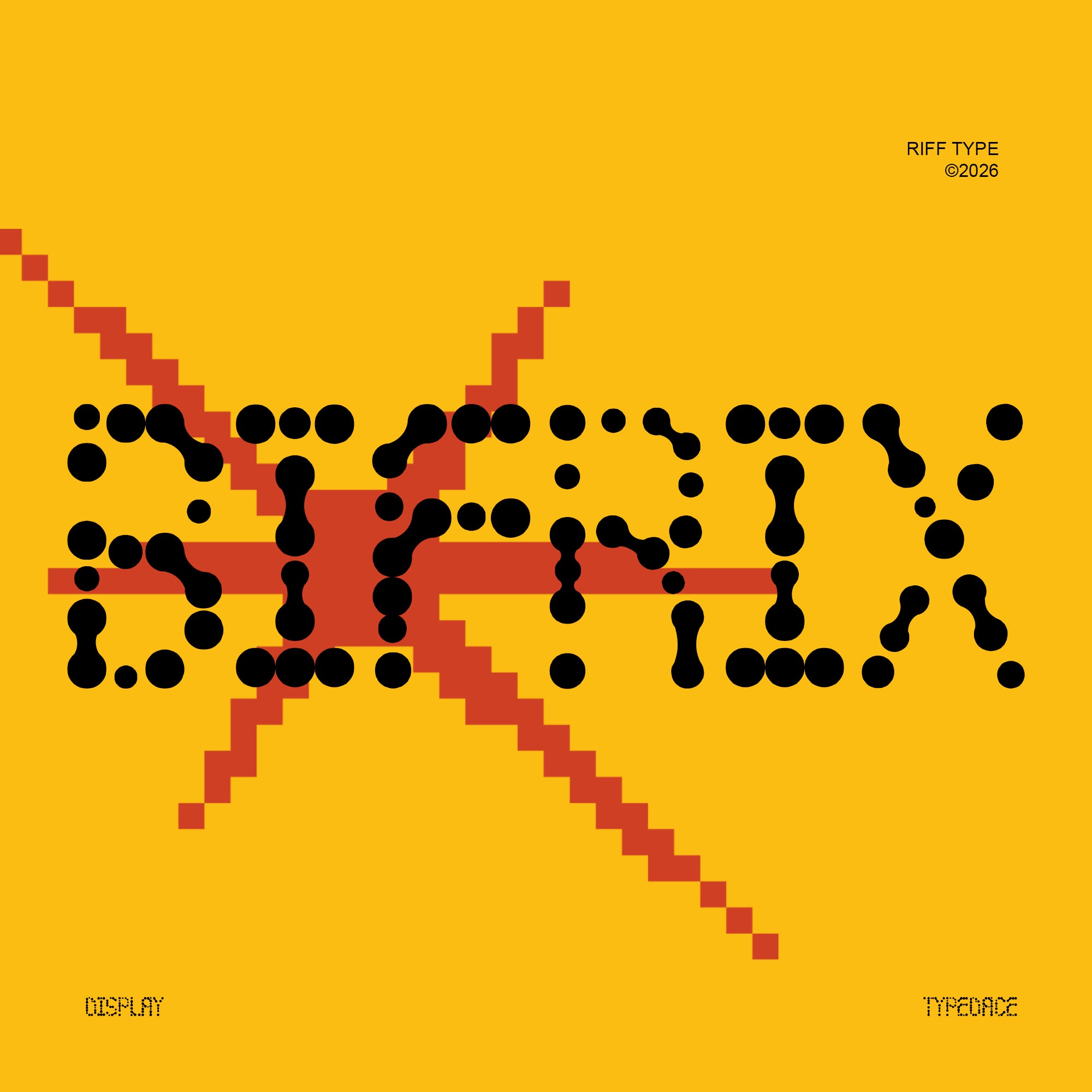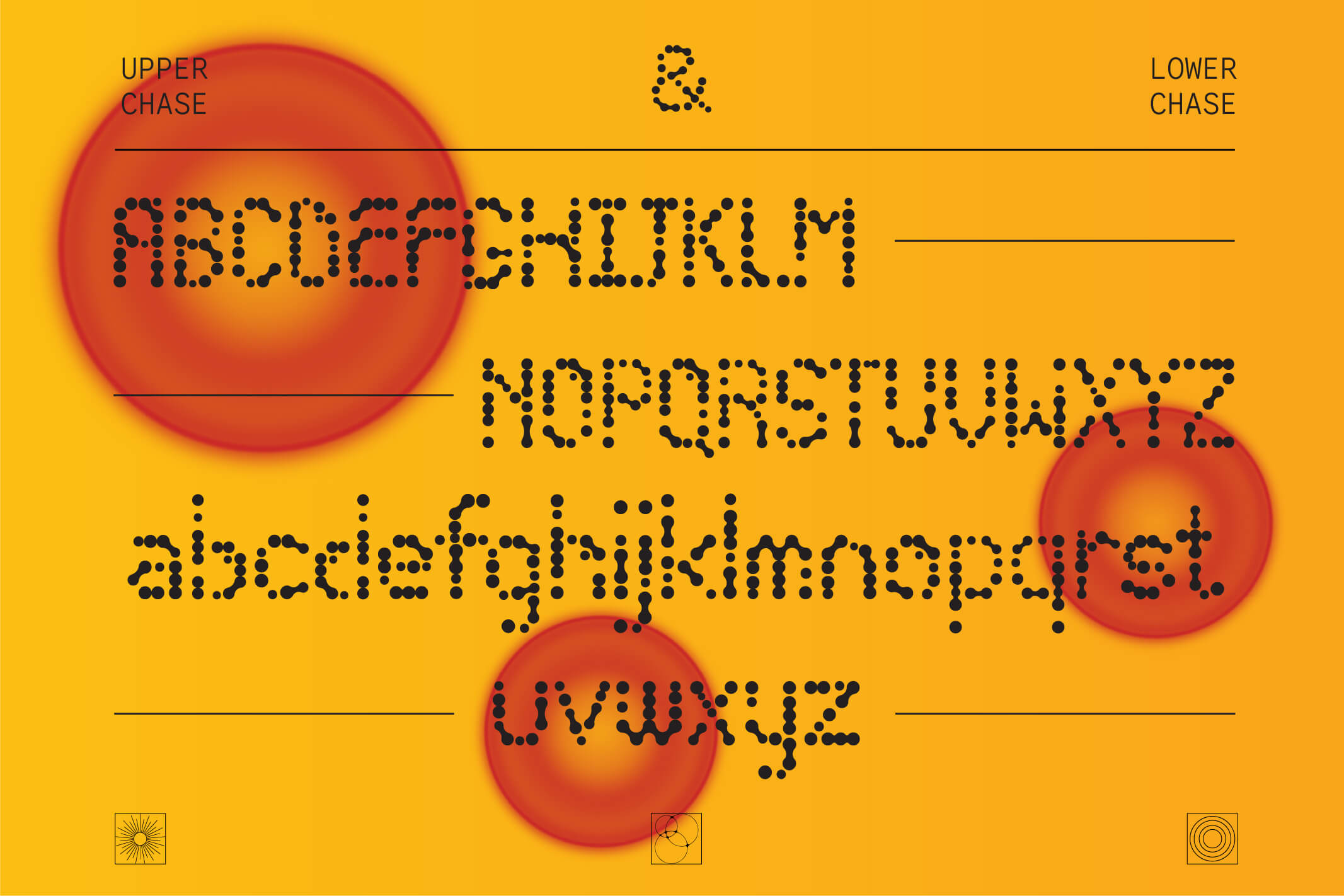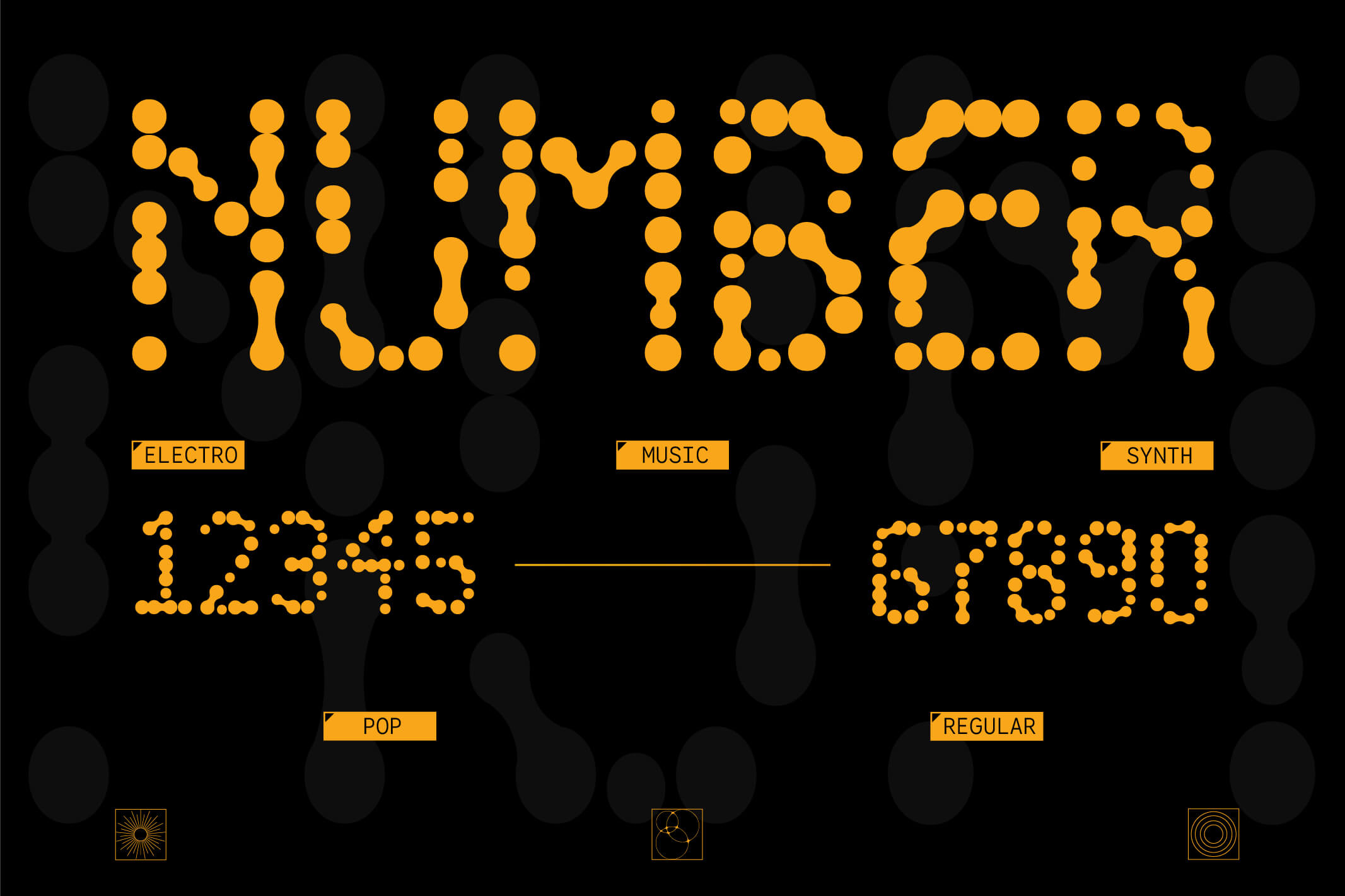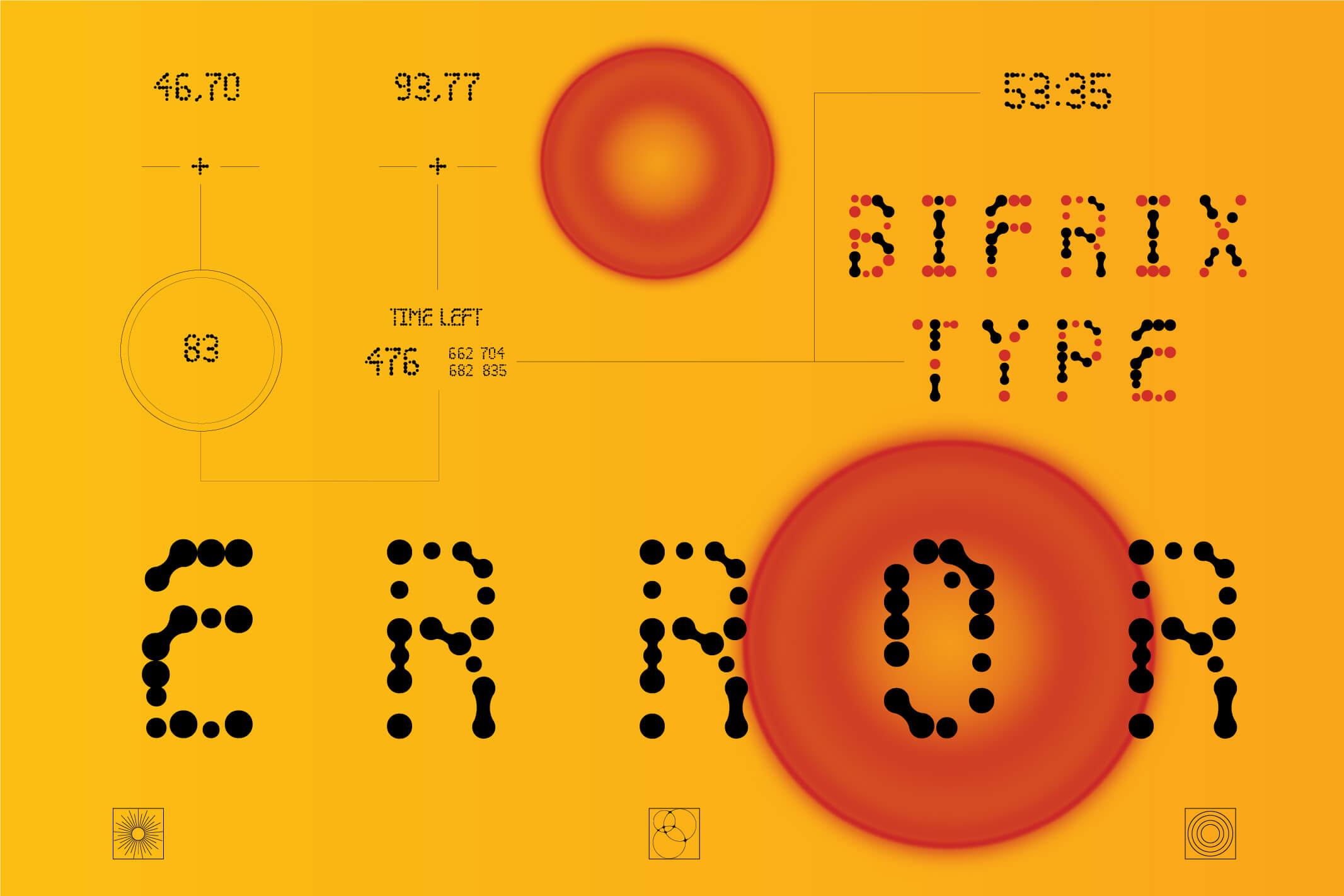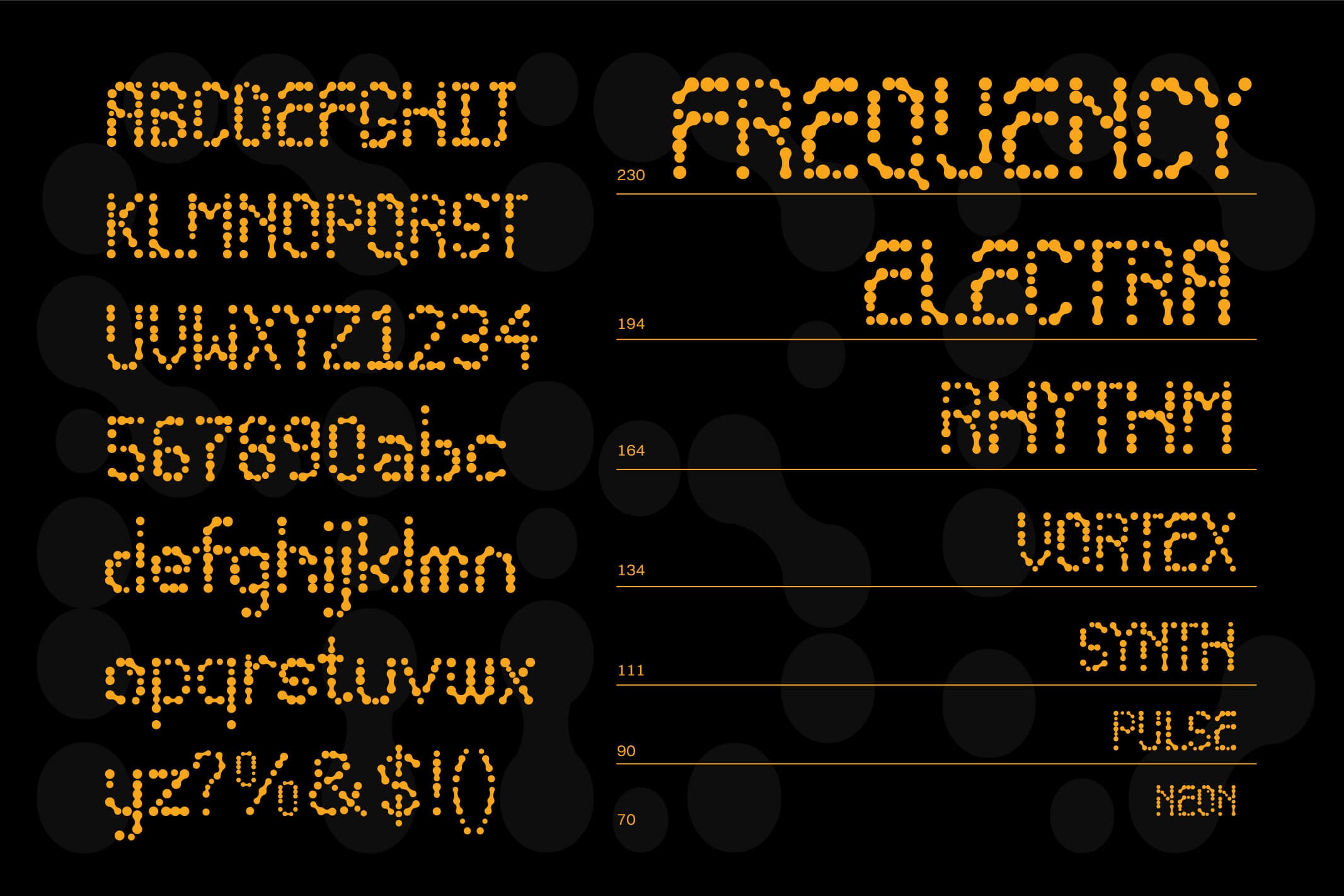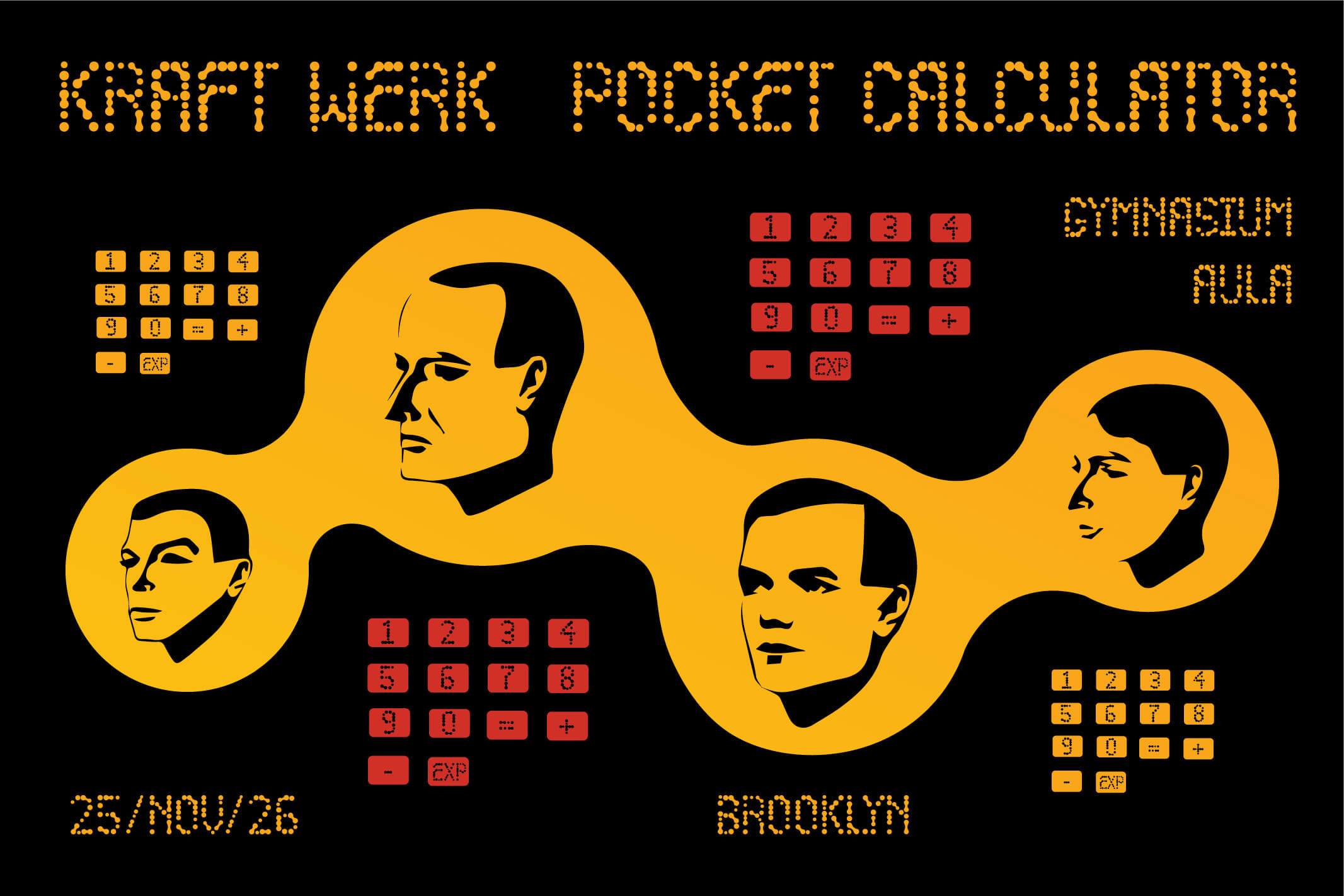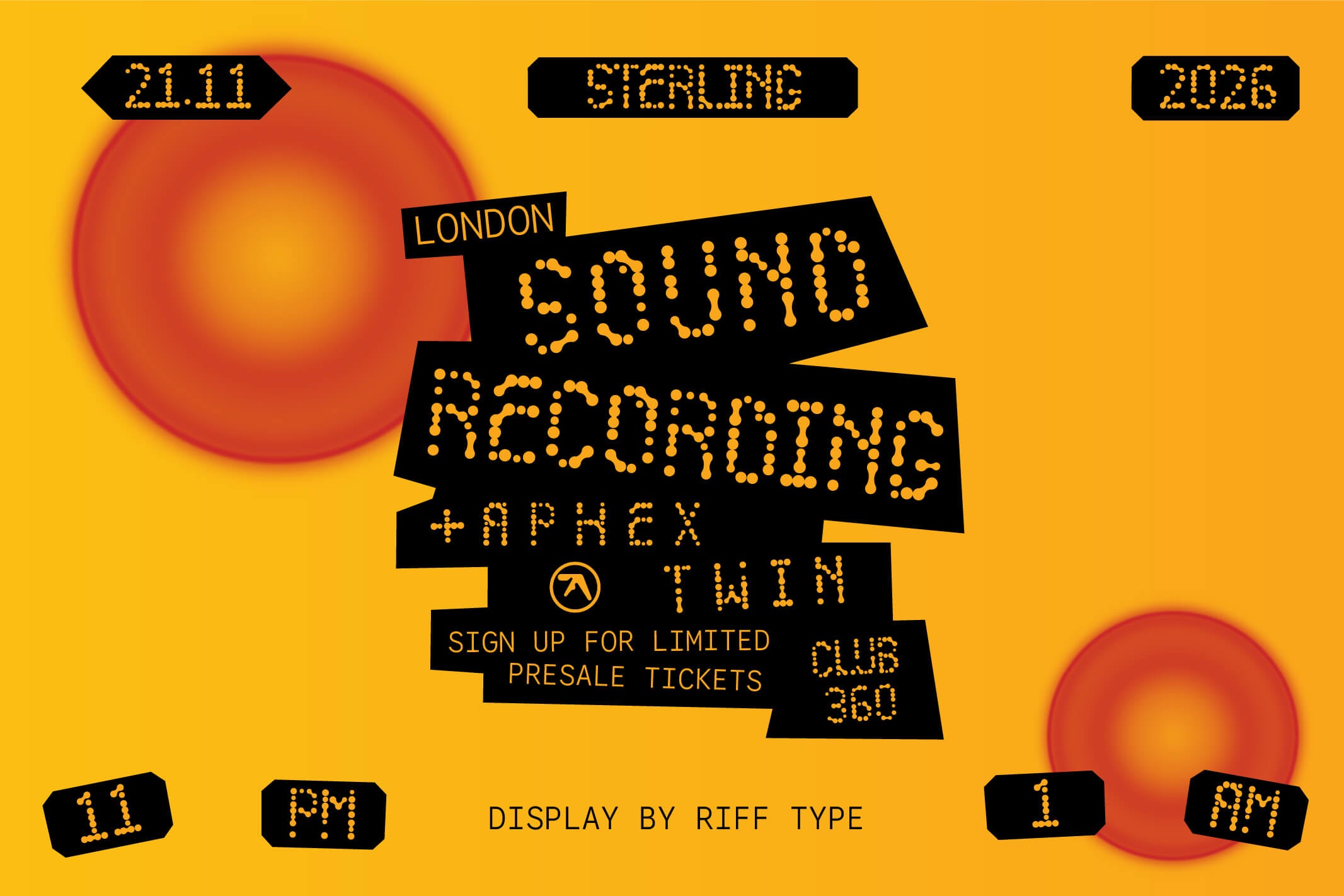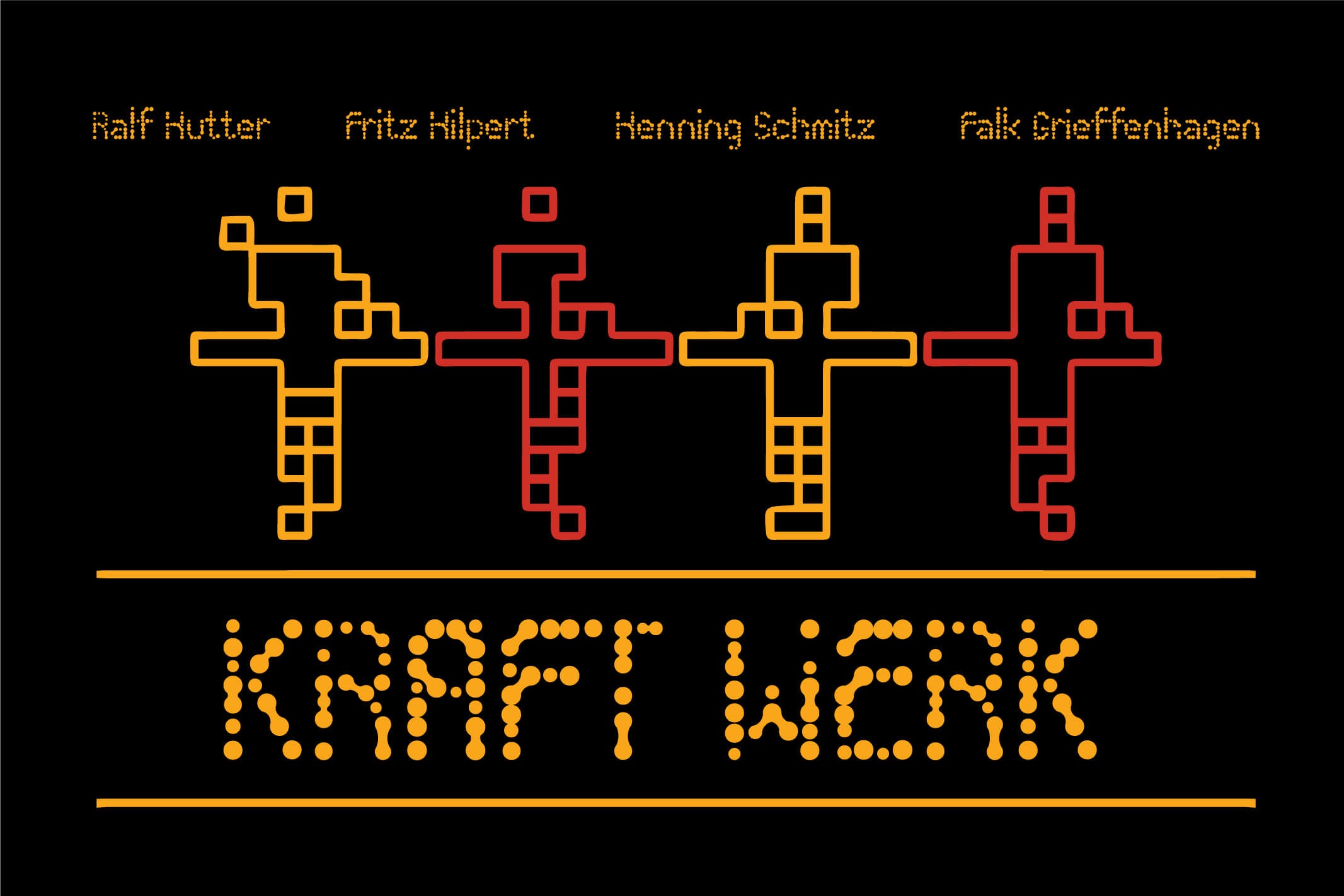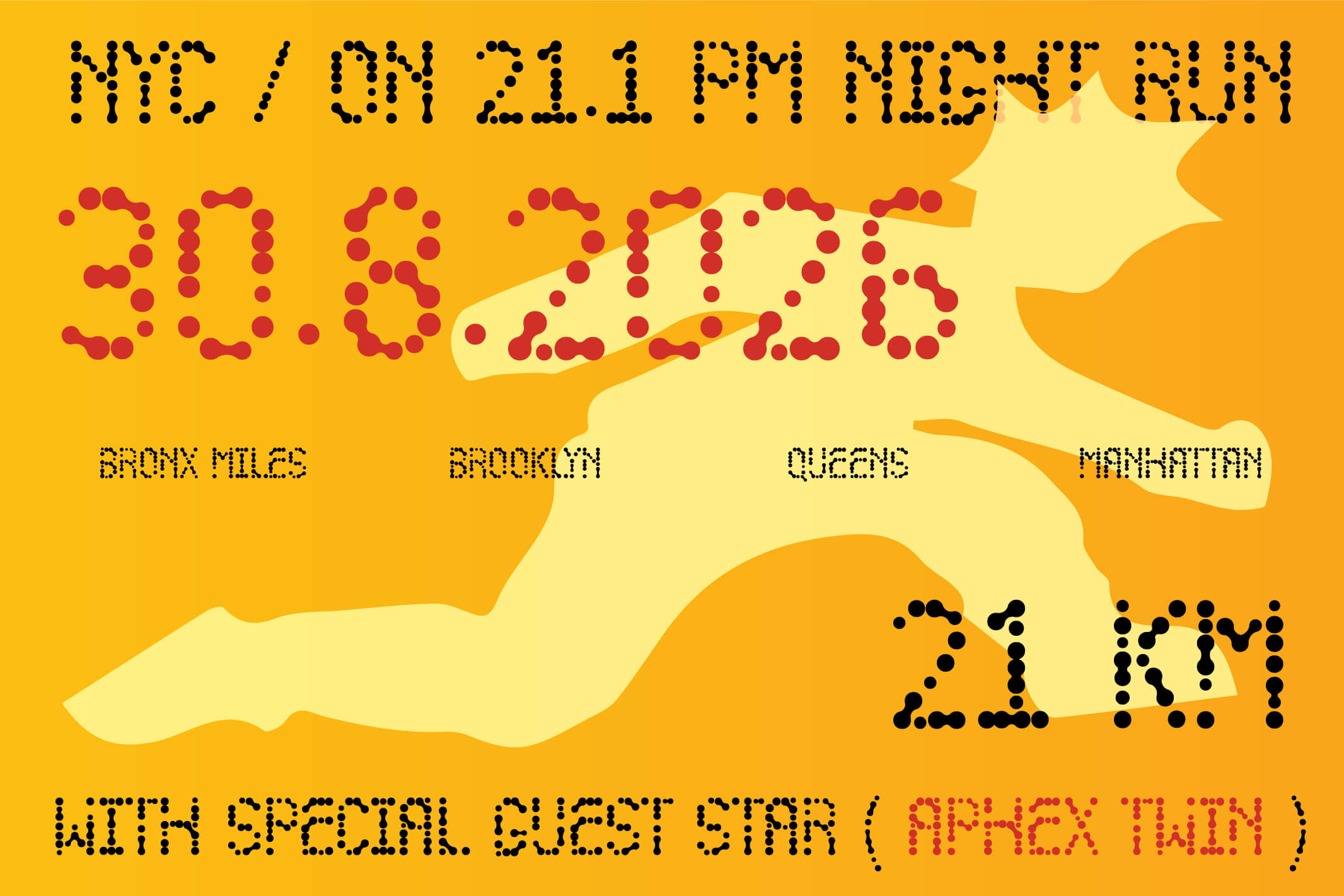
Bifrix - Modular Dot Techno Display Typeface
Bifrix is a high-impact display typeface built at the absolute intersection of electronic sequencing and structural minimalism. Constructed on a rigid digital grid where uniform matrix dots fuse into fluid, liquid connections, this font translates the hypnotic loops, clinical precision, and pulsing sub-bass of techno music into a striking visual experience.
It is a typographic powerhouse engineered for the future of electronic music branding and cybernetic design.
Bifrix is a modular display typeface designed with a digital grid structure, featuring uniform matrix dots that create fluid connections. The product includes TTF, OTF, WOFF, and WOFF2 file formats.